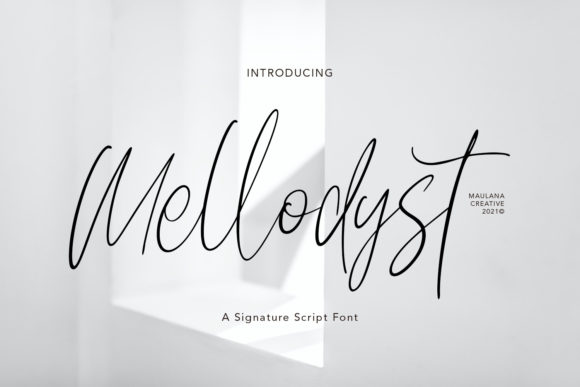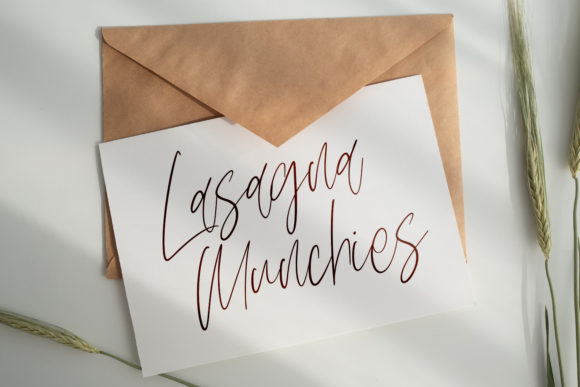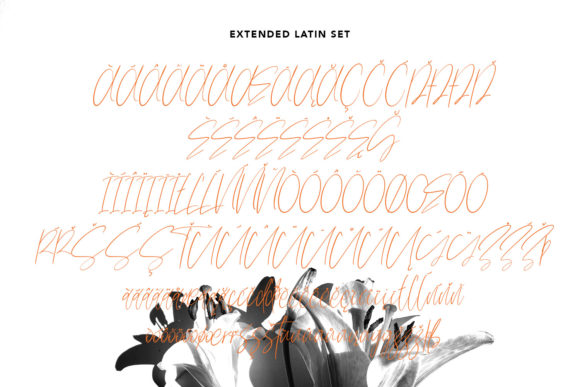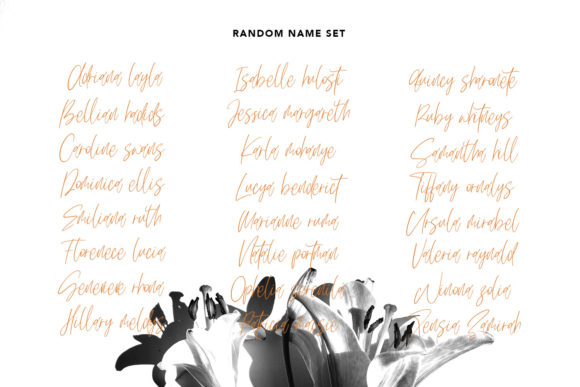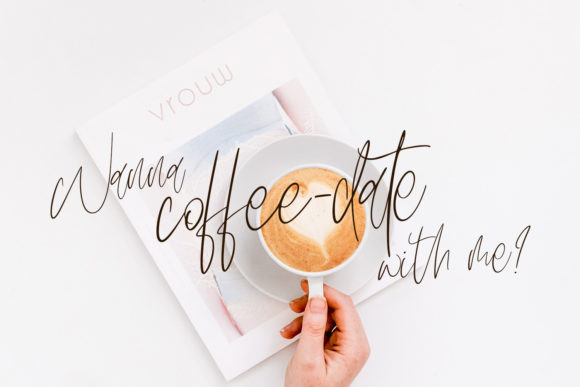
Mellodyst Font
About Mellodyst Font
Mellodyst is a thin, flowing and delicate script font. This versatile script font has a wide spectrum of applications ranging from greeting cards to headlines and is guaranteed to add a romantic feel to your next project.